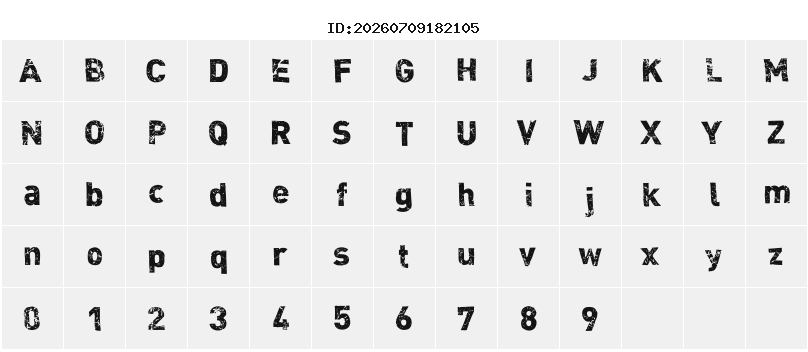
DINk Preview
• Font Name: DINk
• Font ID: TensionType: Trashed Din: 2010
• Full Font Name: DINk
• PostScript Name: DINk
• Designer: Michael Tension
• Manufacturer: Tension Type
About DINk.ttf
DINk.ttf is a modern, elegant sans-serif font designed for ultimate readability and visual harmony. Perfect for branding, headlines, web design, and print materials.